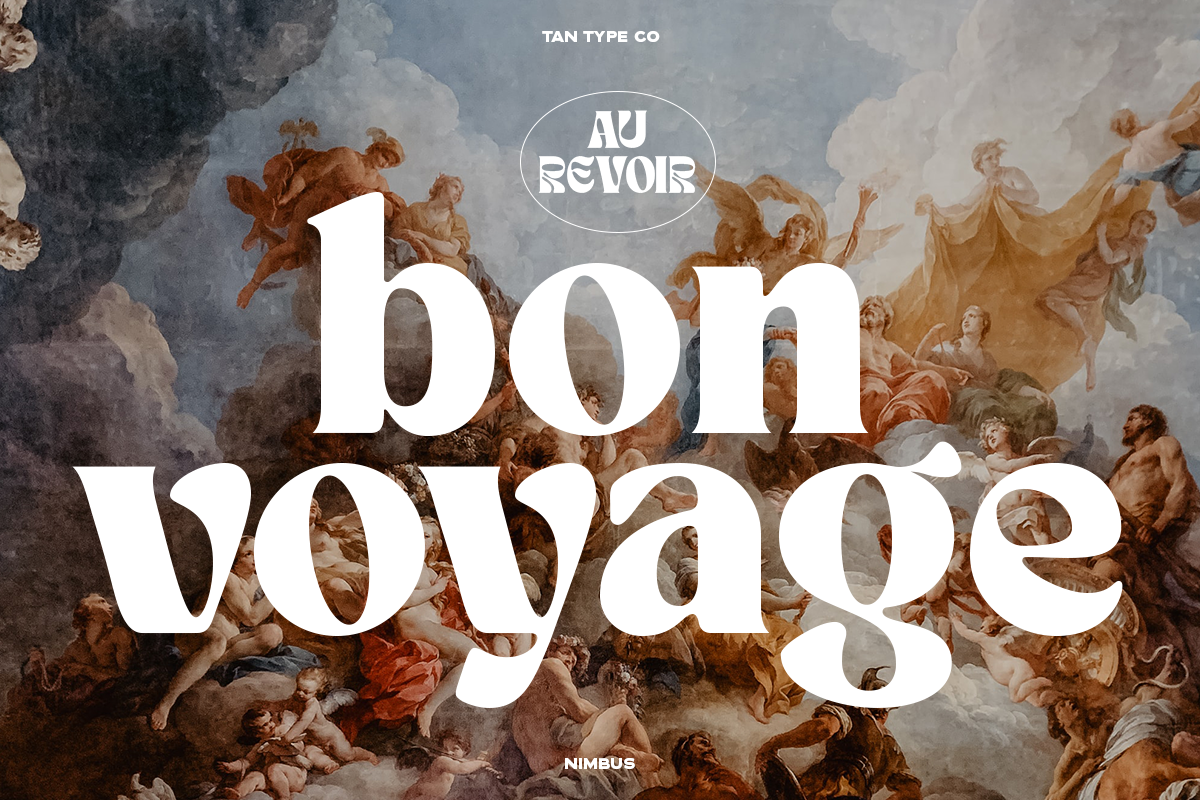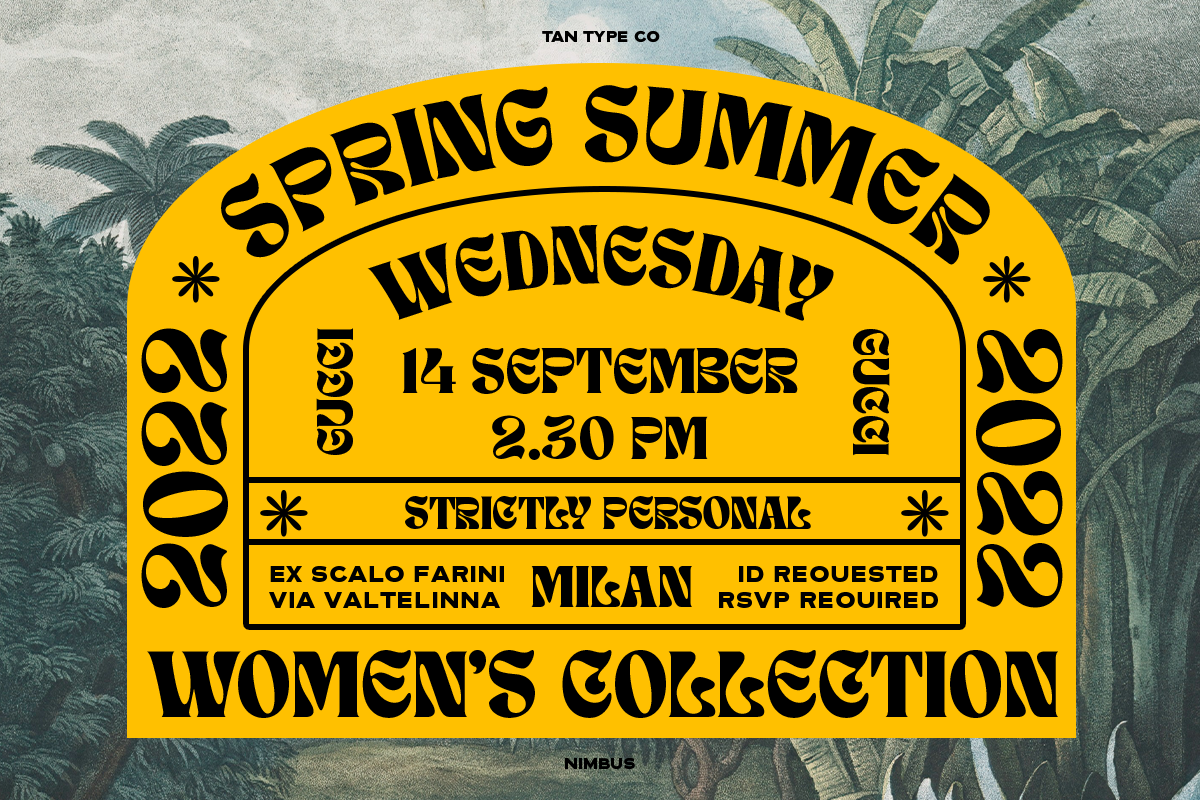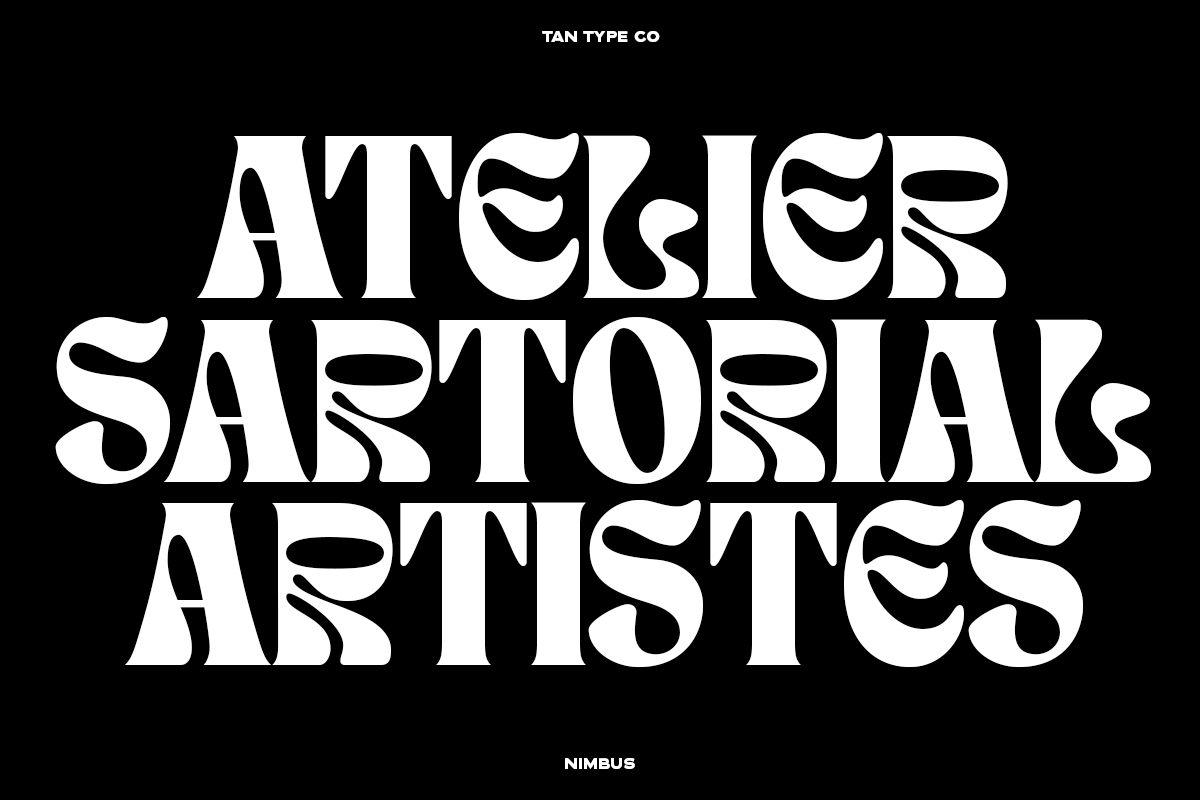
TAN – NIMBUS is a psychedelic inspired display typeface. It’s retro, bold, and playful. Perfect if you need a dose of fun in your project. This font is perfect for creating vintage-themed designs and giving it a touch of nostalgia and personality.